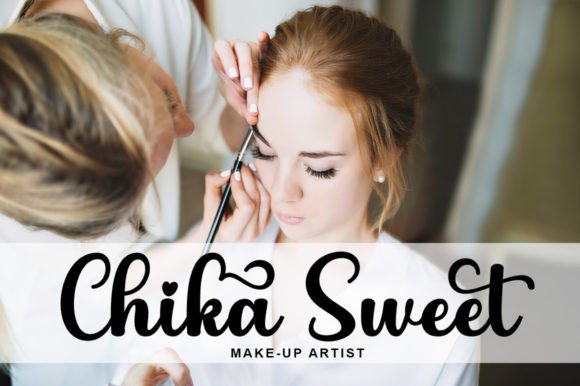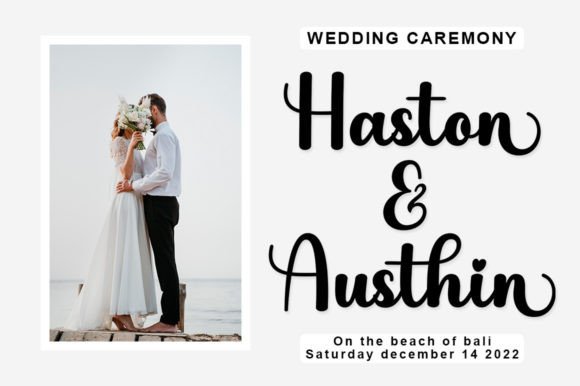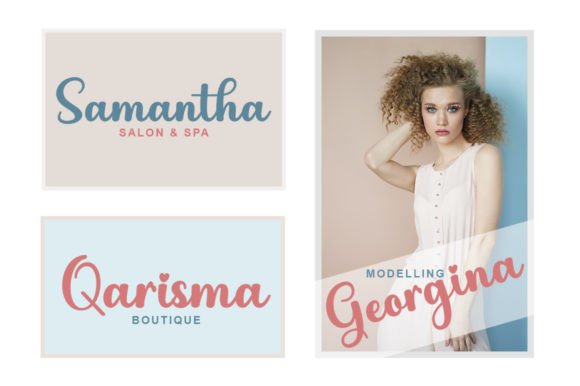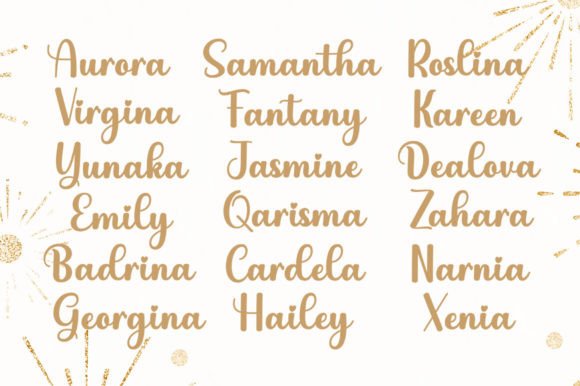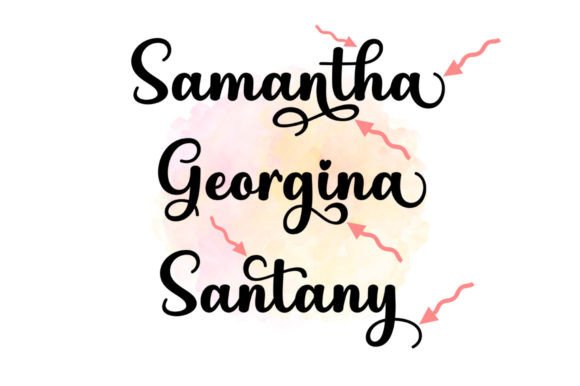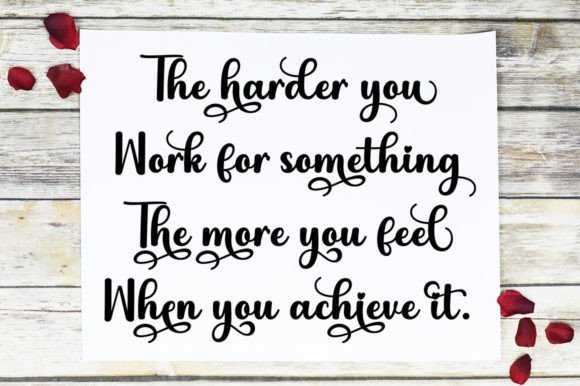
Introducing Backpack Font: Elevate Your Designs with Elegance and Class
Are you tired of using the same old fonts in your designs? Look no further than Backpack Font, a lovely and neat script font that exudes elegance and class. Crafted with precision and attention to detail, Backpack Font is the perfect addition to any design project that requires a touch of sophistication and refinement.
The Story Behind Backpack Font
Backpack Font was particularly crafted for those who need a beautiful and refreshing look to their designs. The creators of this font understood the importance of having a unique and eye-catching typography that sets your work apart from the rest. With Backpack Font, you can add a touch of elegance and whimsy to your designs, making them truly unforgettable.
Key Features of Backpack Font
So, what makes Backpack Font so special? Here are just a few of its key features:
- Elegant and Refined: Backpack Font boasts a sleek and sophisticated design that is perfect for high-end branding, packaging, and advertising projects.
- Neat and Legible: The font’s clean lines and precise craftsmanship ensure that it remains highly legible, even at smaller sizes.
- Script Style: Backpack Font features a beautiful script style that adds a touch of whimsy and personality to any design.
- Versatile: This font is perfect for a wide range of design applications, from logos and branding to packaging, posters, and more.
Why Choose Backpack Font?
With so many fonts to choose from, why should you choose Backpack Font? Here are just a few compelling reasons:
- Unique and Eye-Catching: Backpack Font is a one-of-a-kind font that will help your designs stand out from the crowd.
- Easy to Use: This font is incredibly easy to use, even for those who are new to design.
- High-Quality: Backpack Font is a high-quality font that is designed to deliver exceptional results.
How to Use Backpack Font in Your Designs
Using Backpack Font in your designs is incredibly easy. Here are just a few tips to get you started:
- Pair it with Other Fonts: Backpack Font pairs beautifully with other fonts, so don’t be afraid to experiment with different combinations.
- Experiment with Sizes: This font looks great at a wide range of sizes, from large headings to smaller body text.
- Add a Pop of Color: Backpack Font really comes alive with color, so don’t be afraid to add a pop of color to your designs.
In conclusion, Backpack Font is a truly exceptional font that is sure to elevate your designs to new heights. With its elegant and refined design, neat and legible lines, and versatile script style, this font is perfect for a wide range of design applications. Whether you’re a seasoned designer or just starting out, Backpack Font is a must-have addition to your font library.